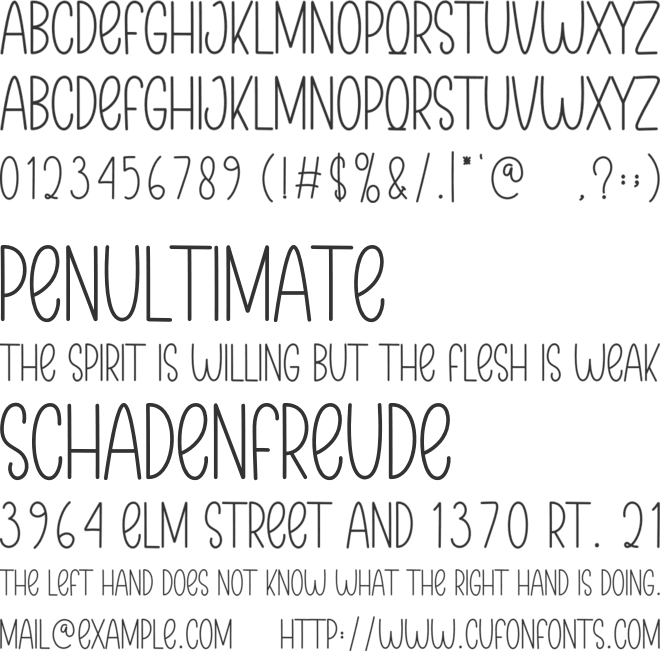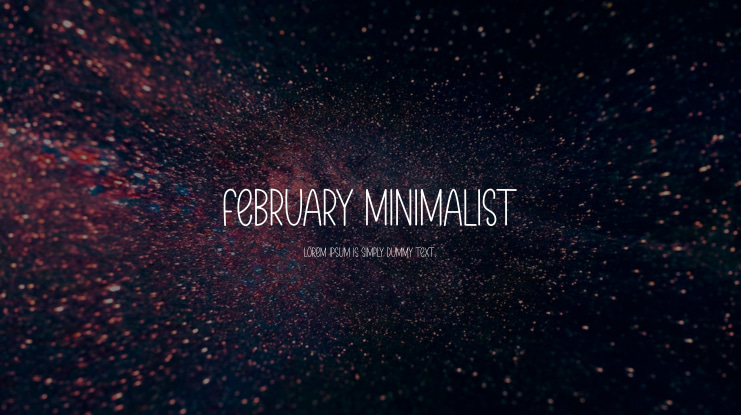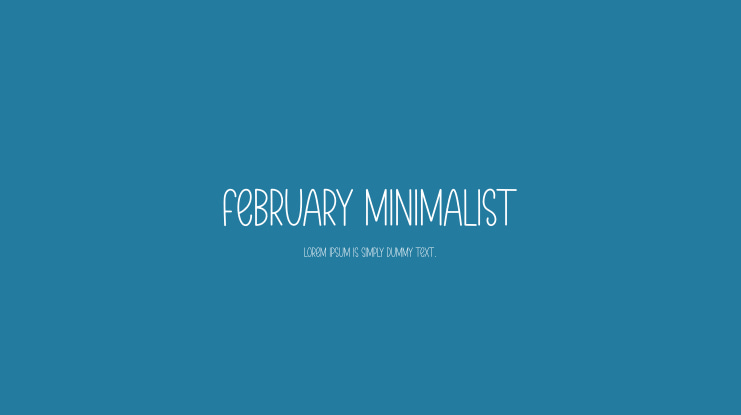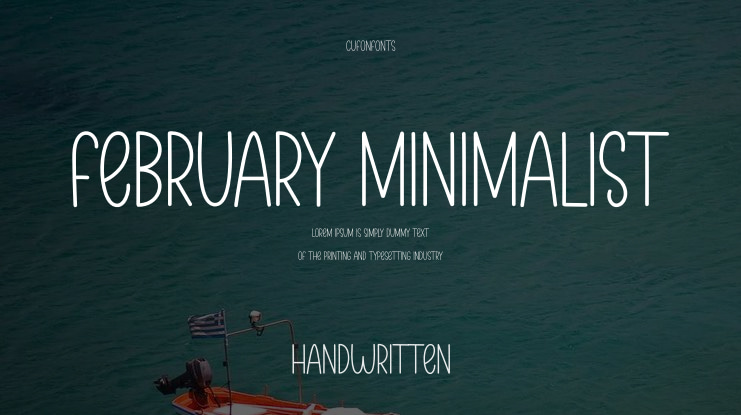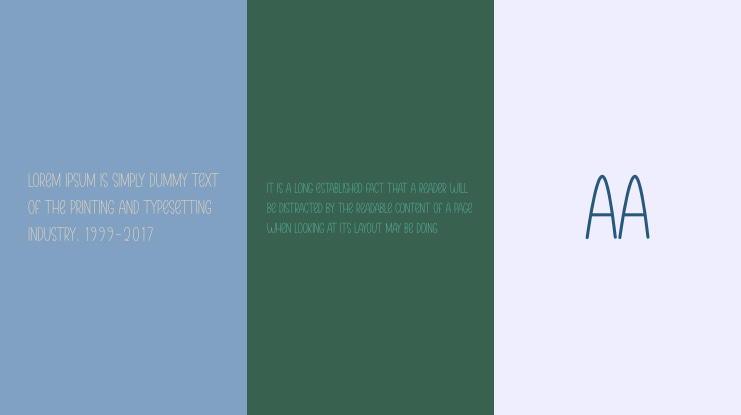
February Minimalist Font
This charming and inviting handwritten display font brings a delightful and whimsical touch to any project. Perfect for creating wedding invitations, greeting cards, or any design that requires a touch of playfulness! For commercial purchases, please visit the website: https://scratchones.com/or. For inquiries about custom fonts, adding font glyphs, font editing, and other commercial requests, please contact us at . Thank you!